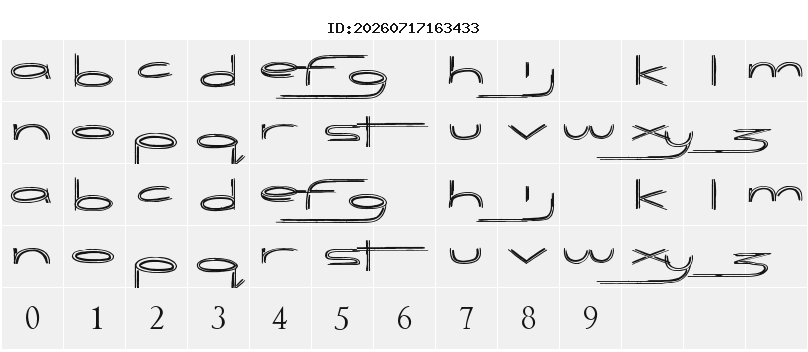
Biogalaxy Preview
• Font Name: Biogalaxy
• Full Font Name: Biogalaxy
About Biogalaxy.ttf
Biogalaxy.ttf is a modern, elegant sans-serif font designed for ultimate readability and visual harmony. Perfect for branding, headlines, web design, and print materials.